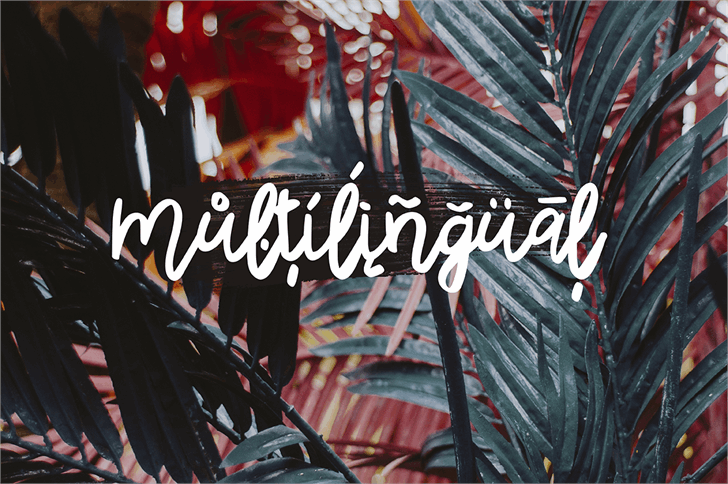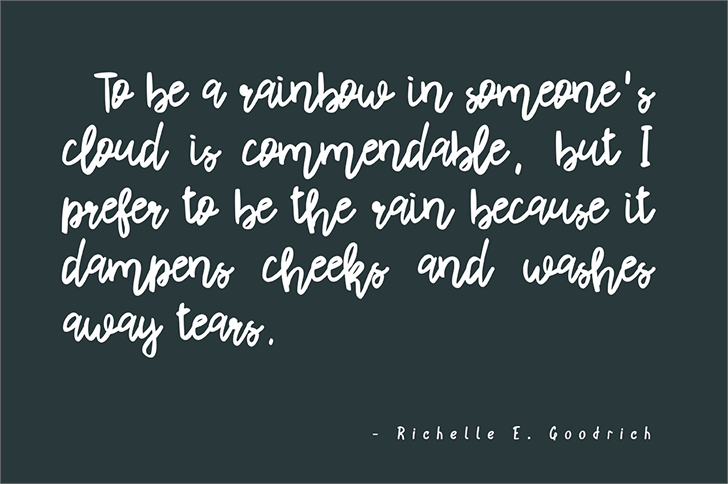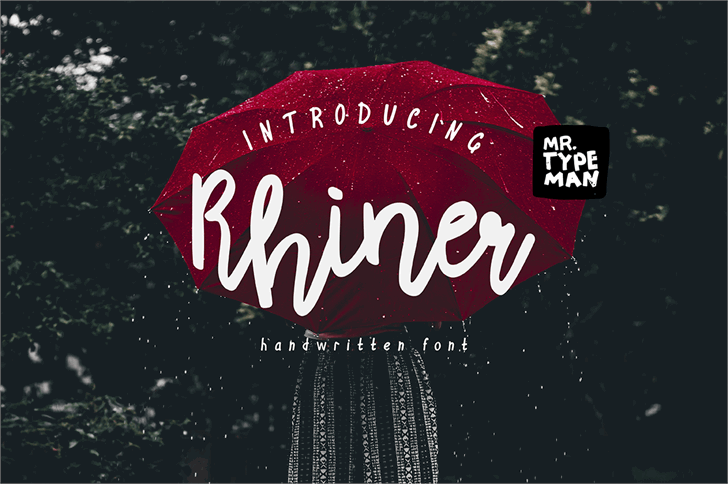
Rhiner Handwritten
Rhiner Handwritten Font
Introducing my new font Rhiner with its pleasant and elegant style. If you want to add a certain charm, appeal and allure in your projects, Rhiner is just what you need!
Introducing my new font Rhiner with its pleasant and elegant style. If you want to add a certain charm, appeal and allure in your projects, Rhiner is just what you need
Full version of Rhiner comes with uppercase, lowercase, standard punctuation, numerals, special letters for most of the European languages and cyrillic typeface.